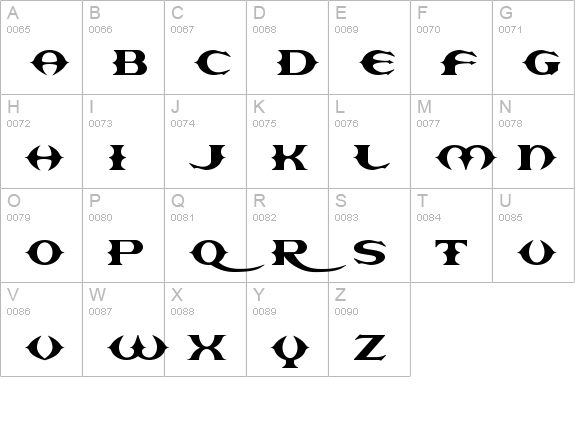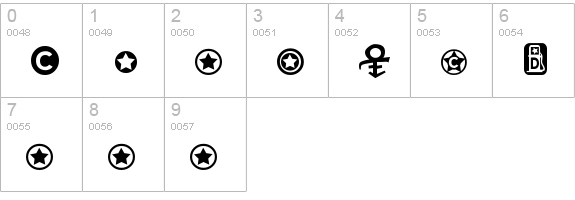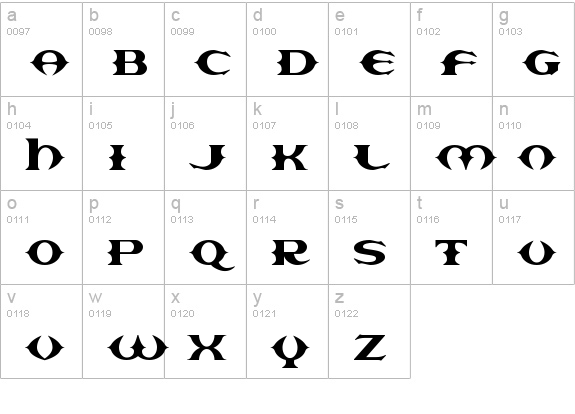
Europa Font is a modern and stylish typeface that exudes elegance and sophistication. With its clean lines and sleek curves, Europa Font is perfect for a wide range of design projects, from branding to editorial design. The font's versatility allows it to be used in both digital and print applications, making it a valuable addition to any designer's toolkit. What sets Europa Font apart is not only its timeless design, but also the fact that it is available for free download at FontsMarket.com. This means that you can access this high-quality font without any cost, allowing you to elevate your projects without breaking the bank. Whether you're a seasoned designer looking for a fresh font to add to your collection, or a newcomer searching for a reliable and visually appealing typeface, Europa Font is sure to meet your needs. Download Europa Font today and experience the beauty and versatility of this exceptional typeface.